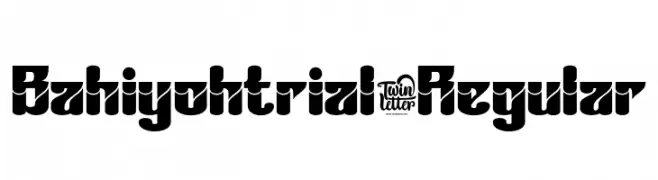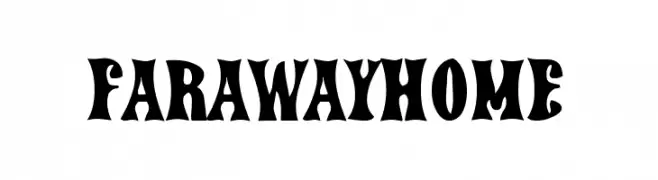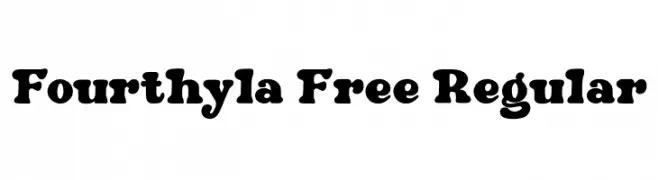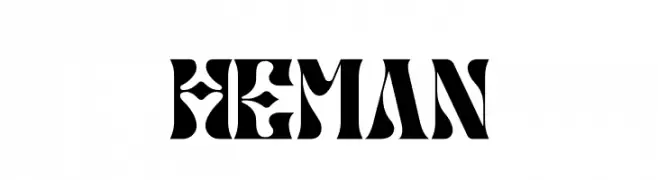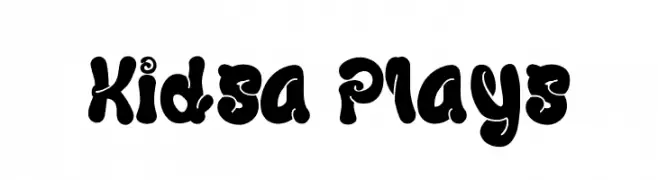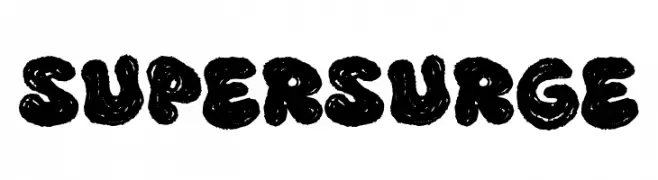
A bold, textured font with a playful, hand-drawn style.
A bold, modern font with sharp angles and smooth curves, ideal for impactful designs.
A playful, bold font with rounded, bubbly characters.
A futuristic, geometric font with bold, rounded shapes and unique cutouts.
A bold, retro-inspired font with geometric and blocky characters.
A bold, high-contrast font with dramatic and dynamic character designs.
A bold, geometric font with a modern and impactful style.
A bold, playful font with rounded edges and a retro-modern vibe.
A bold, playful font with rounded strokes and a retro flair.
A bold, decorative font with whimsical curves and unique serifs.